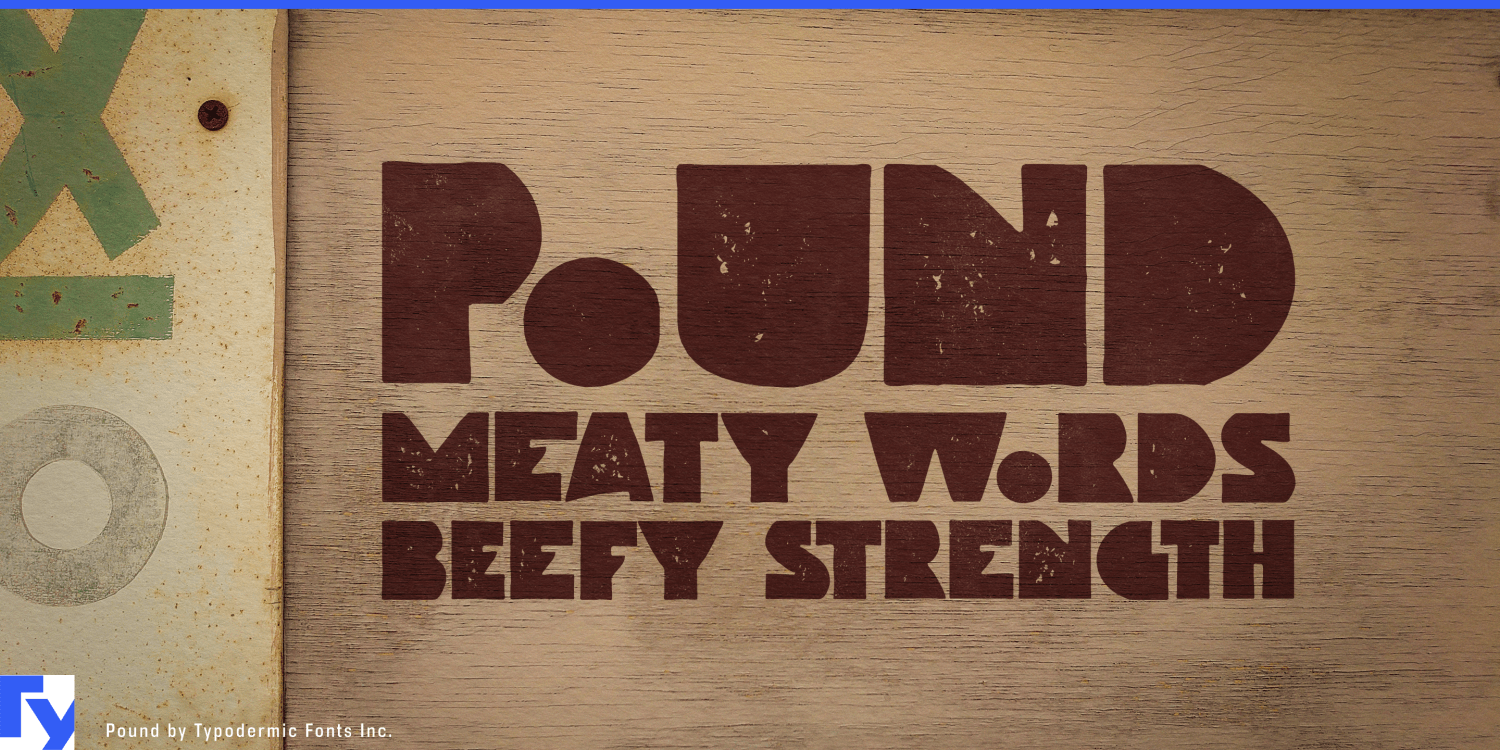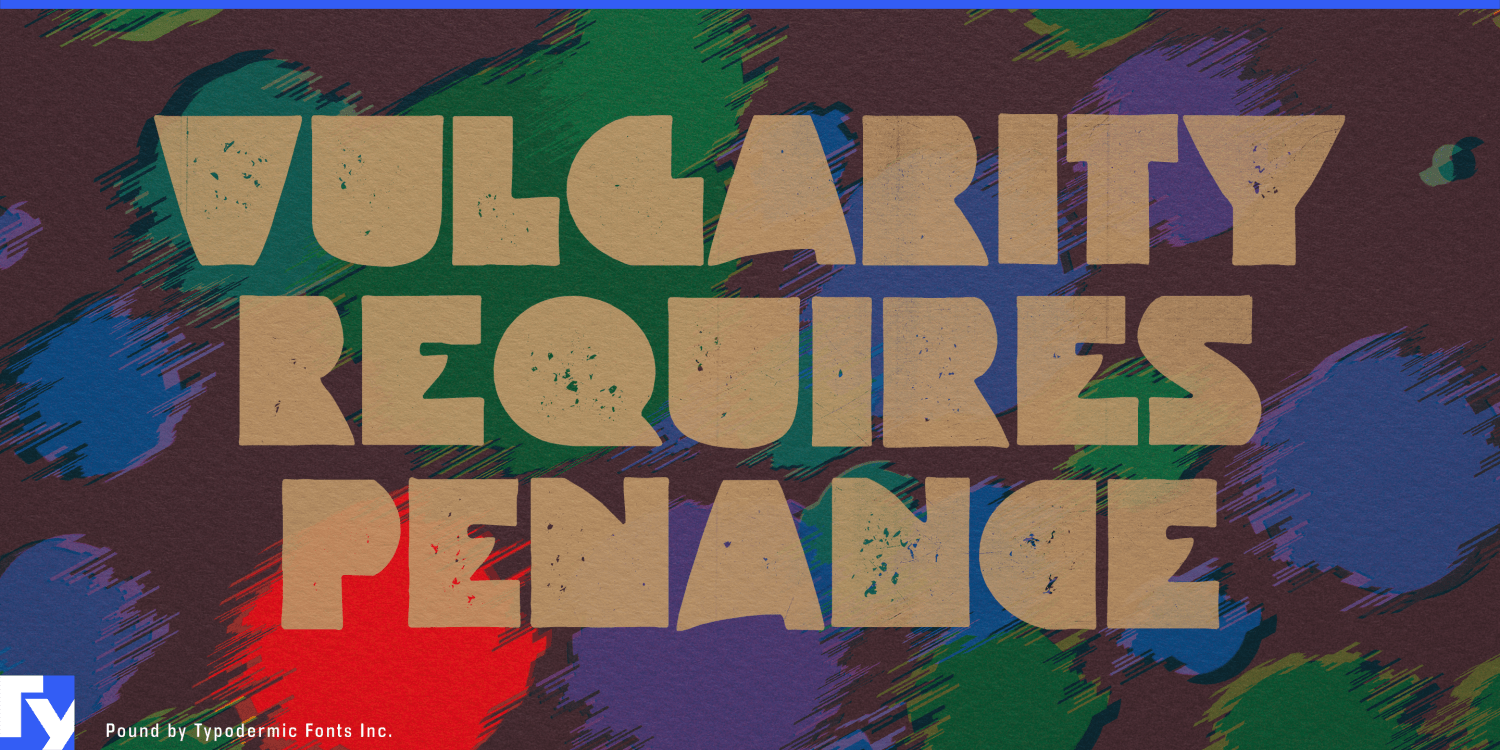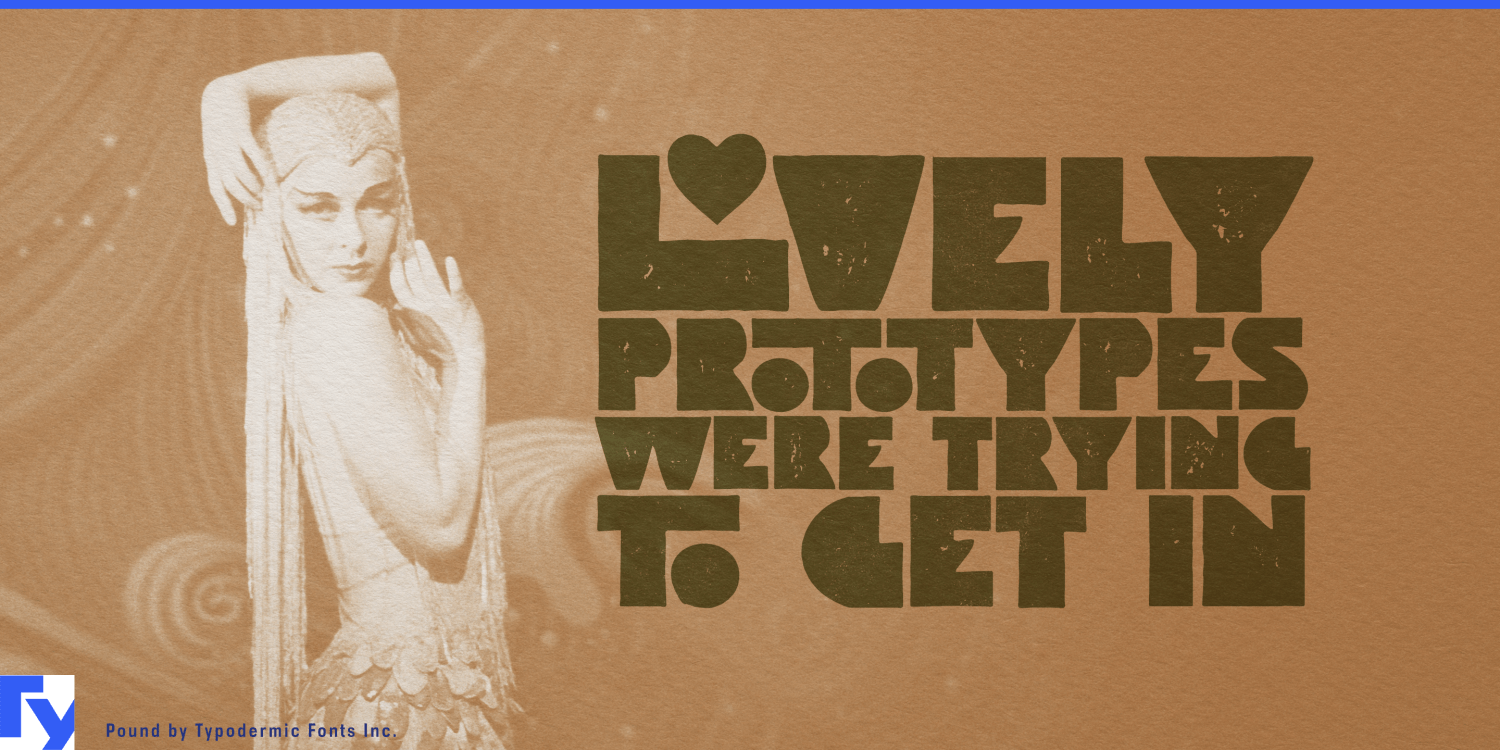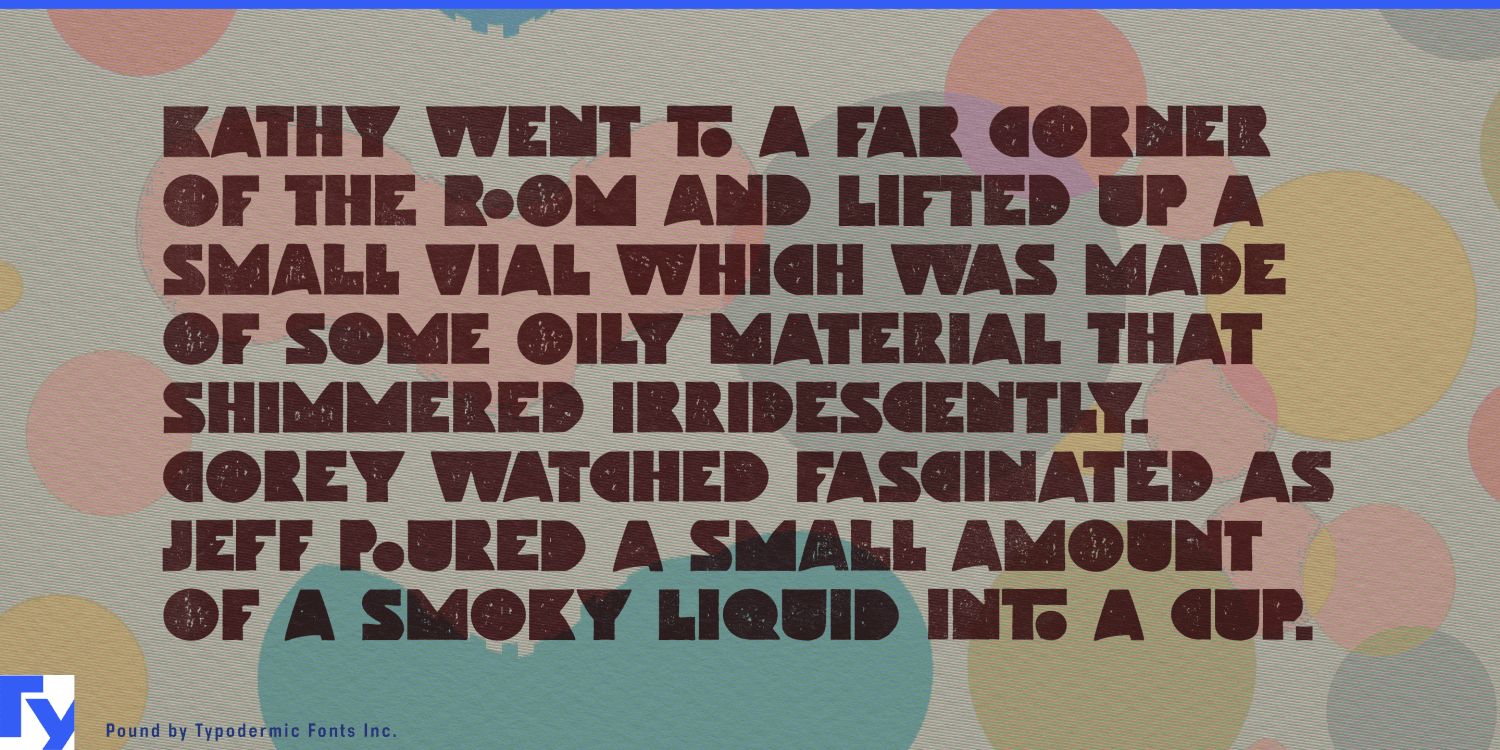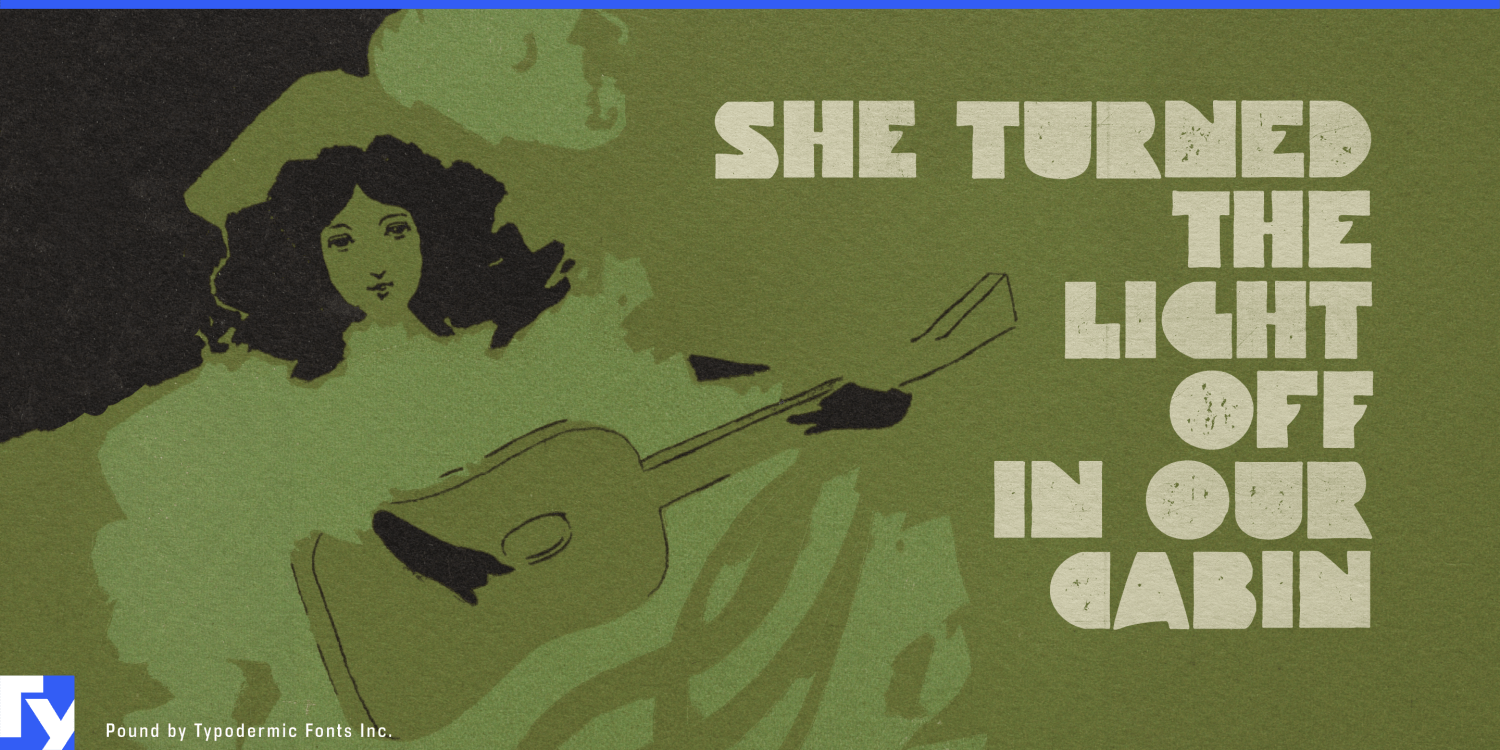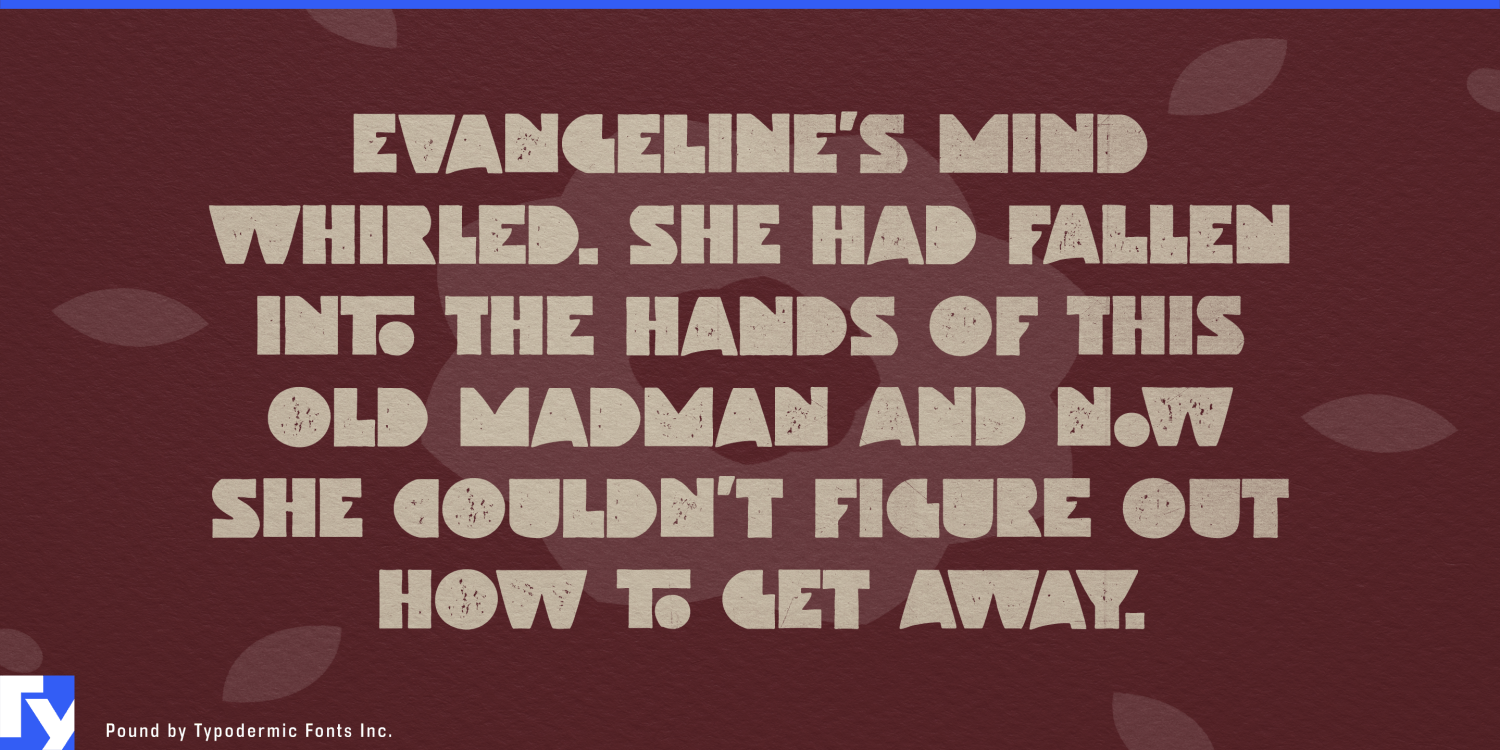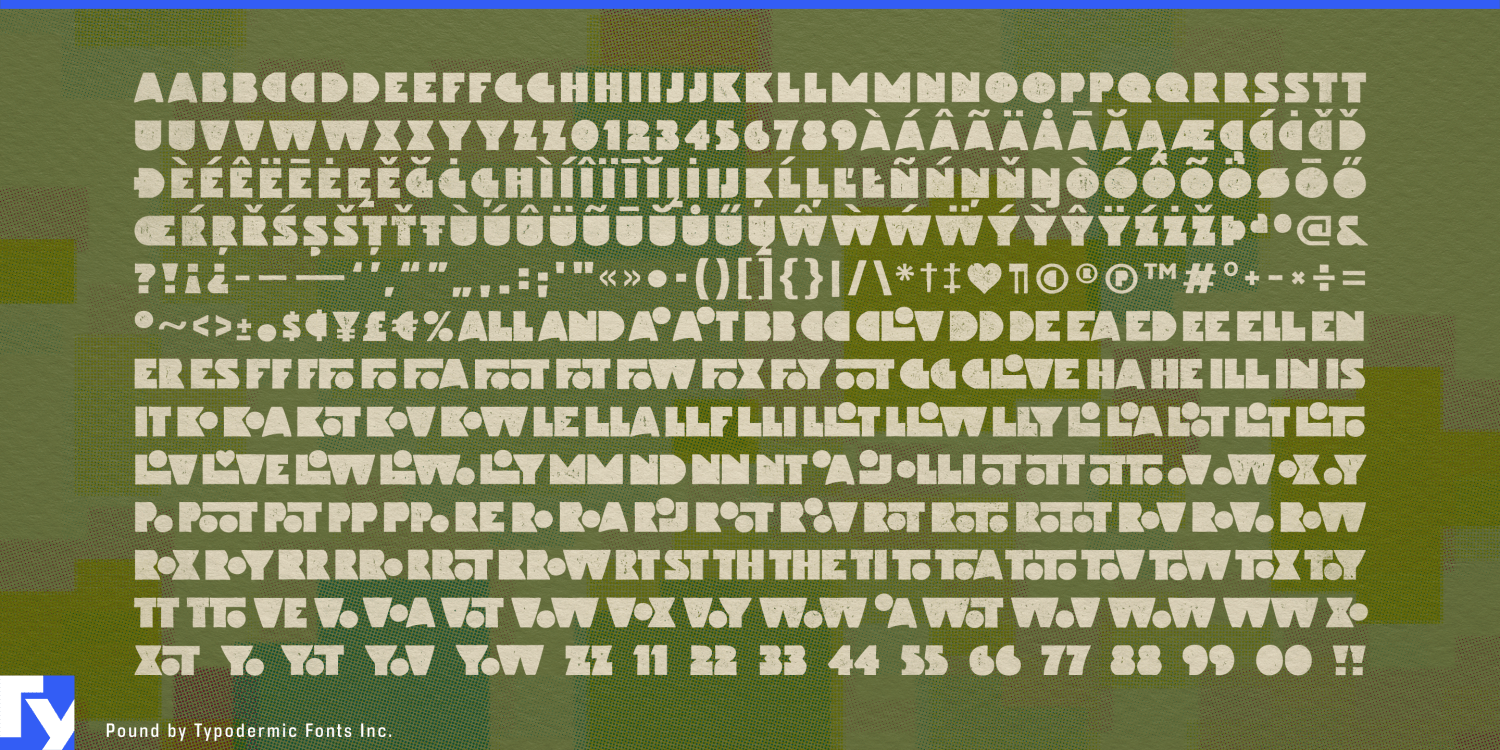
Pound
Buy NowBrace yourself for Pound, the typographic sledgehammer that’s about to pulverize your preconceptions of Art Deco design. This is a force of nature, a counterless colossus ready to stamp its authority across your creative landscape.
Pound doesn’t merely sit on the page; it hammers home your message with the subtlety of a jackhammer at dawn. Its beefy, bold characters are forged in the furnace of 21st-century aesthetics, tempered with the timeless allure of Art Deco, and ready to be pounded into the anvil of your designs. With each keystroke, feel the satisfying thud of Pound’s letterforms as they impact your canvas. Its unique counterless design doesn’t just break the mold—it shatters it, leaving your audience’s expectations in pieces. This is typography that doesn’t just speak; it roars, it thunders, it reverberates through the very foundations of visual communication.
But Pound isn’t all brute force. Its interlocking letter pair ligatures are a masterclass in typographic choreography, a delicate dance of forms that belies the typeface’s muscular frame. These ligatures don’t just connect letters; they forge unbreakable bonds between characters, creating words that are greater than the sum of their parts. And for those moments when you need to dial back the intensity? Simply toggle off the “standard ligatures” function and watch as Pound shifts gears, ready to tackle more subdued tasks with the same unwavering confidence.
For the digital frontier, Pound offers its Web style—a leaner, meaner version of itself that proves that even in low-resolution environments, this typeface refuses to pull its punches. It’s the same Pound attitude, distilled into a format that loads faster than a professional boxer’s jab. Pound doesn’t discriminate in its linguistic weight class, either. From Afaan Oromo to Zuni, this heavyweight champion is ready to step into the ring with most Latin-based European writing systems. It’s a polyglot powerhouse, ready to make an impact in languages you didn’t even know existed.
It’s time to stop tapping gently at the keys and start pounding out designs that demand attention. Don’t just make a statement—stamp it, press it, bang it out with Pound. Because when your designs speak with this much force, the world has no choice but to listen.